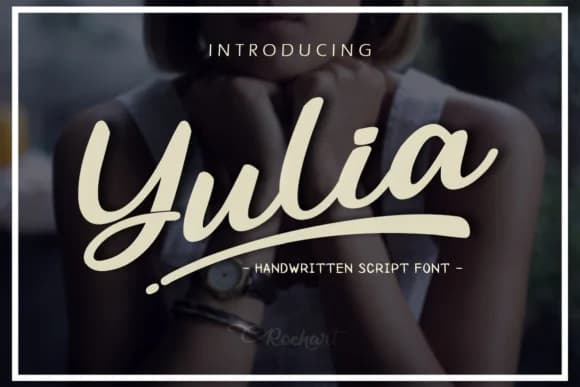
1 / 7About Yulia Light Font
Yulia Light by RochArt is a contemporary handwritten script that balances elegance with modern sensibility. The typeface carries a refined, brushed quality that works wonderfully for personal branding and sophisticated design applications. Its graceful letterforms make it ideal for creating custom monograms, wedding invitation suites, and luxe brand identity systems that demand an authentic human touch.
The font shines in lifestyle and creative industries where hand-lettered aesthetics matter. Perfect for event stationery packages, boutique skincare packaging, and artisanal product labels where elegance speaks louder than trend. Its flowing strokes adapt well to both formal and contemporary contexts, making it equally suited for high-end restaurant menus, personalized thank-you cards, and upscale social media graphics that need deliberate, considered design choices.
Yulia Light offers the versatility to work across multiple design mediums while maintaining its characteristic refinement. Whether you're developing a cohesive brand identity or adding a personal signature touch to individual projects, this typeface brings a polished, intentional quality to your work. The naturally flowing strokes and consistent weight make it readable in both large and small applications, ensuring your designs maintain their sophisticated character across all formats. Explore Yulia Light on Creative Fabrica to add this refined script to your design collection.
Yulia Light Font is a script font that shines as a display or heading face. Pair it with a clean sans-serif or serif font for body text β the contrast creates a clear hierarchy while the two styles stay balanced and easy to read.
Yulia Light Font